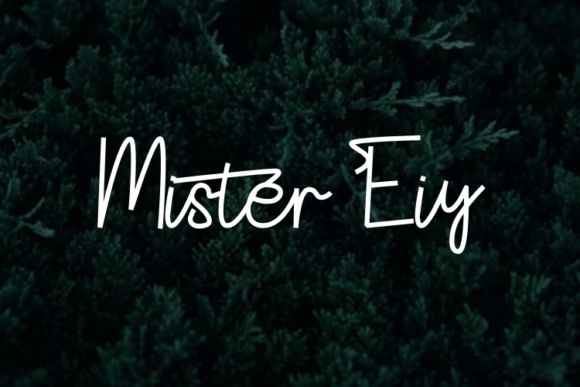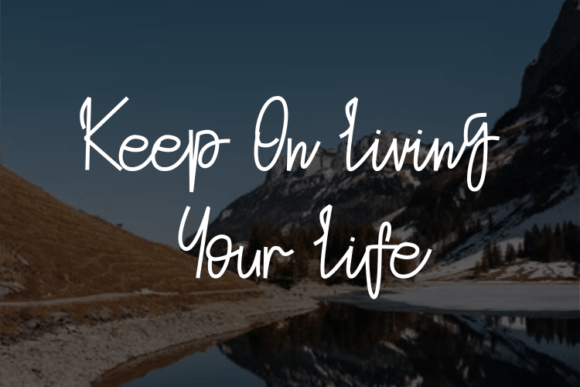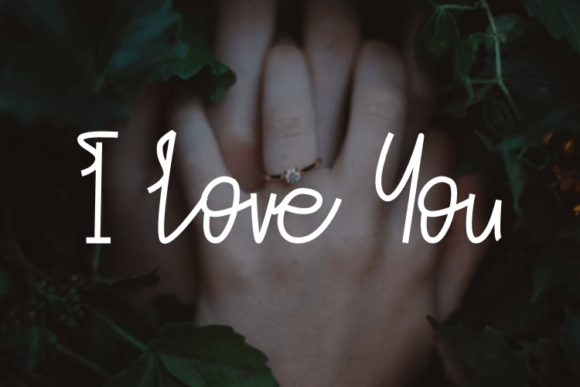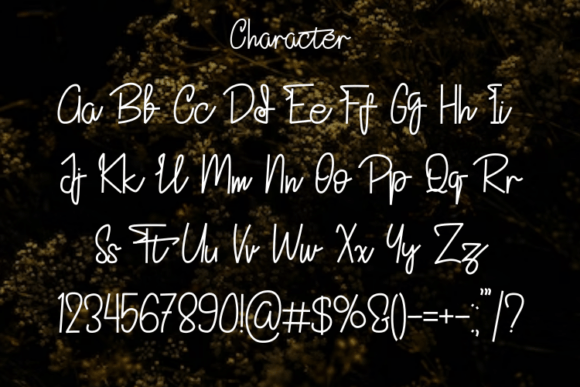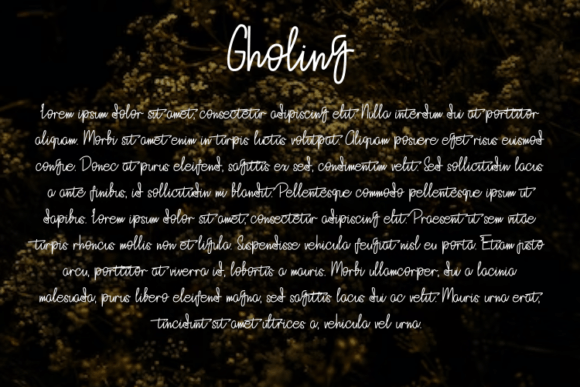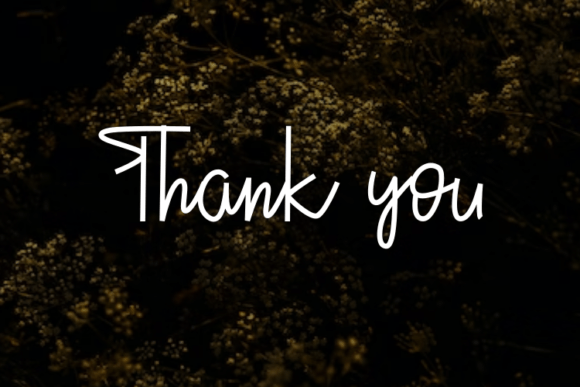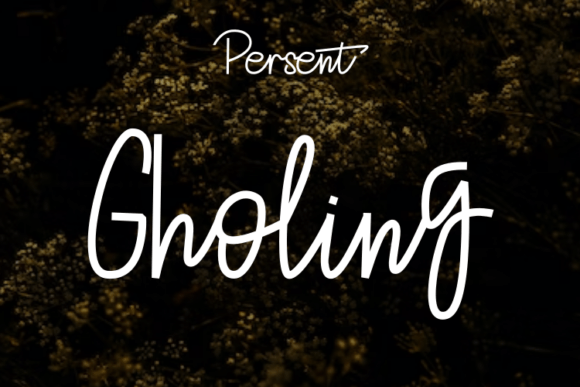
Gholing Font: Elevate Your Design with Elegance and Luxury
In the world of typography, fonts play a crucial role in conveying the tone and personality of a brand, product, or creative project. For designers and crafters seeking a typeface that exudes elegance, luxury, and modernity, the Gholing Font is an excellent choice. This script typeface boasts a simple yet sophisticated style, making it perfect for a wide range of applications, from logos and book or movie titles to fashion brands, magazines, and more.
The Gholing Font: A Perfect Blend of Simplicity and Sophistication
The Gholing Font is a script typeface designed to make a statement. Its simple style belies a deep sense of elegance and refinement, making it an ideal choice for designers and crafters who want to add a touch of luxury to their work. With its modern look and feel, this font is sure to elevate any project to new heights.
Key Features of the Gholing Font
- Simple yet Elegant: The Gholing Font features a clean and minimalist design that conveys a sense of sophistication and refinement.
- Modern Look: This font boasts a modern aesthetic that is perfect for designers and crafters who want to create a contemporary look.
- Script Typeface: As a script typeface, the Gholing Font adds a touch of elegance and luxury to any project.
- Versatile: This font is perfect for a wide range of applications, including logos, book or movie titles, fashion brands, magazines, clothing, fonts, quotes, and more.
Applications of the Gholing Font
The Gholing Font is a versatile typeface that can be used in a variety of creative projects. Here are some of the ways you can use this font to elevate your design:
- Logo Design: Create an elegant and luxurious logo for your brand with the Gholing Font.
- Book or Movie Titles: Use this font to create stunning title pages for your book or movie project.
- Fashion Brands: Add a touch of sophistication and glamour to your fashion brand with the Gholing Font.
- Magazines: Use this font to create eye-catching headlines and titles for your magazine.
- Clothing: Create stylish and elegant clothing labels and packaging with the Gholing Font.
- Fonts and Quotes: Use this font to create inspiring quotes and typographic designs.
Why Choose the Gholing Font?
With so many fonts available, why choose the Gholing Font? Here are just a few reasons why this typeface stands out from the rest:
- Elegance: The Gholing Font exudes elegance and sophistication, making it perfect for high-end brands and luxury products.
- Modernity: This font boasts a modern look and feel that is sure to appeal to designers and crafters who want to create a contemporary aesthetic.
- Versatility: The Gholing Font is a versatile typeface that can be used in a wide range of creative projects.
- Easy to Read: Despite its elegant and luxurious feel, the Gholing Font is easy to read, making it perfect for body text and headlines.
In conclusion, the Gholing Font is a script typeface that offers a perfect blend of simplicity, elegance, and luxury. With its modern look and feel, this font is perfect for designers and crafters who want to elevate their design to new heights. Whether you’re creating a logo, book or movie title, fashion brand, magazine, or clothing label, the Gholing Font is an excellent choice. So why wait? Download the Gholing Font today and experience the power of elegant typography.